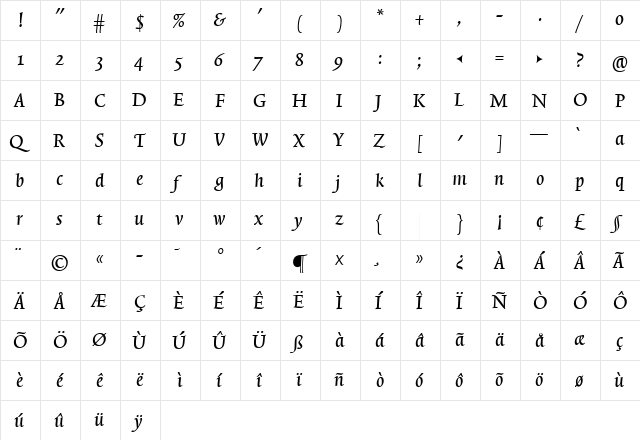
TriniteNo1 Medium Font Preview
TriniteNo1 Medium
TriniteNo1 Medium Font Details
Design Context for TriniteNo1 Typeface
TriniteNo1 offers clean, dependable letterforms without strong stylistic allegiance, making it a practical choice for designers who need flexibility.